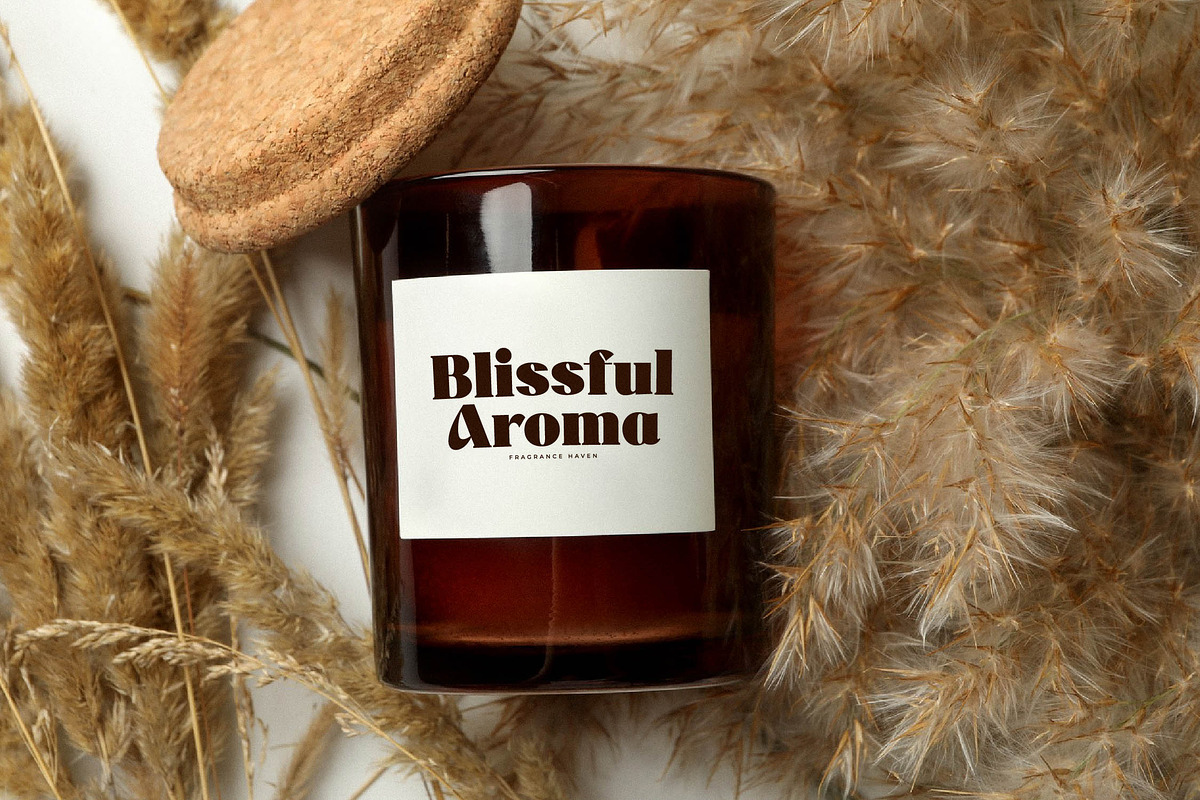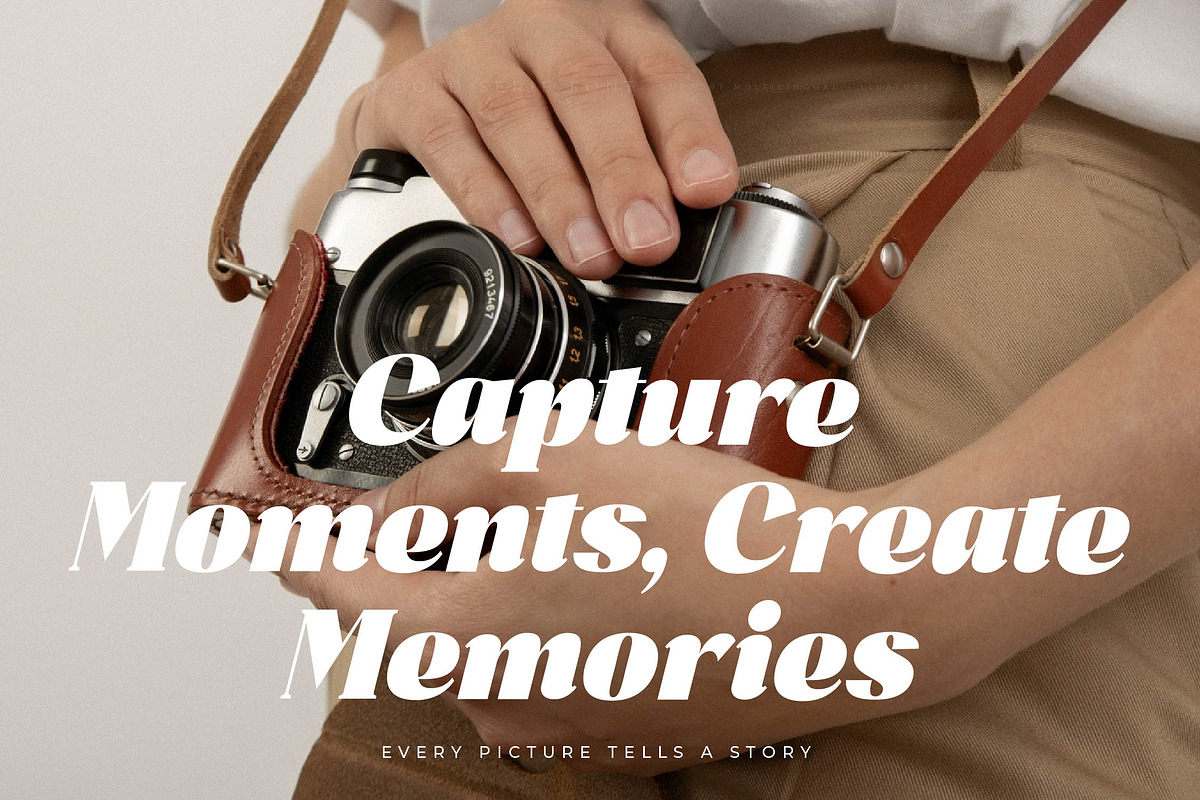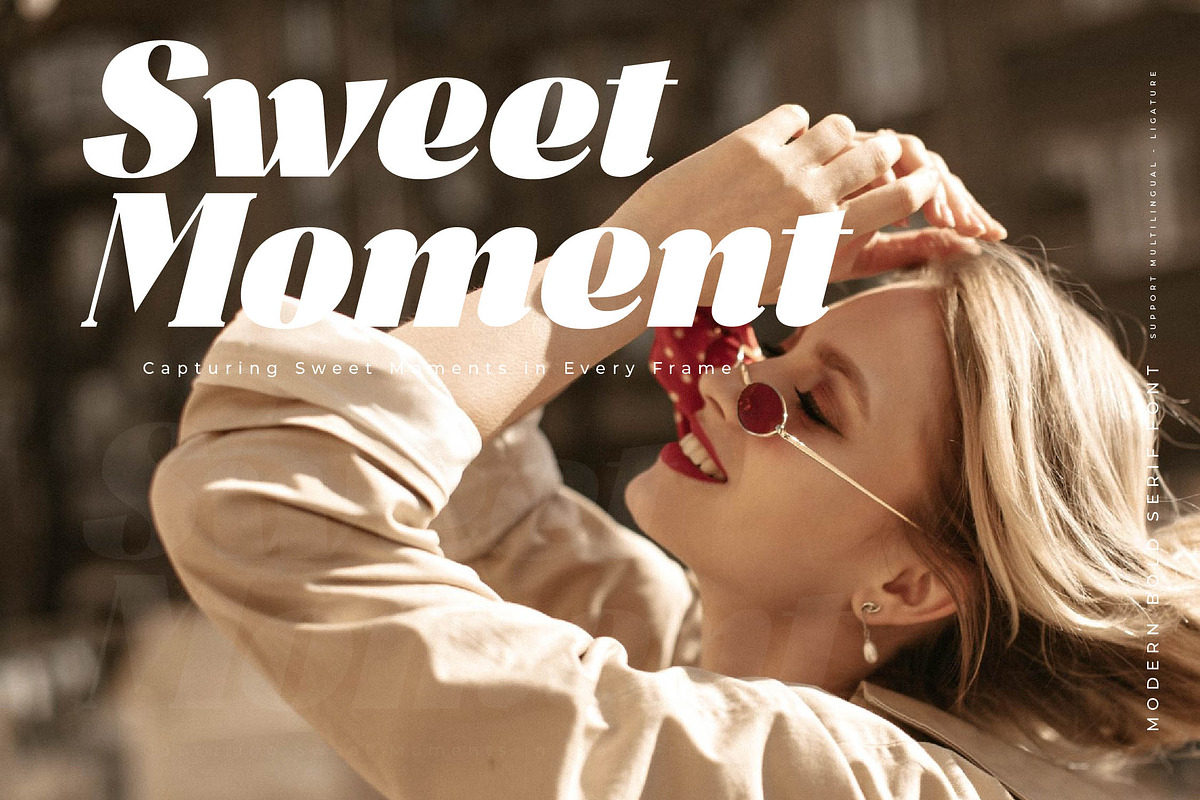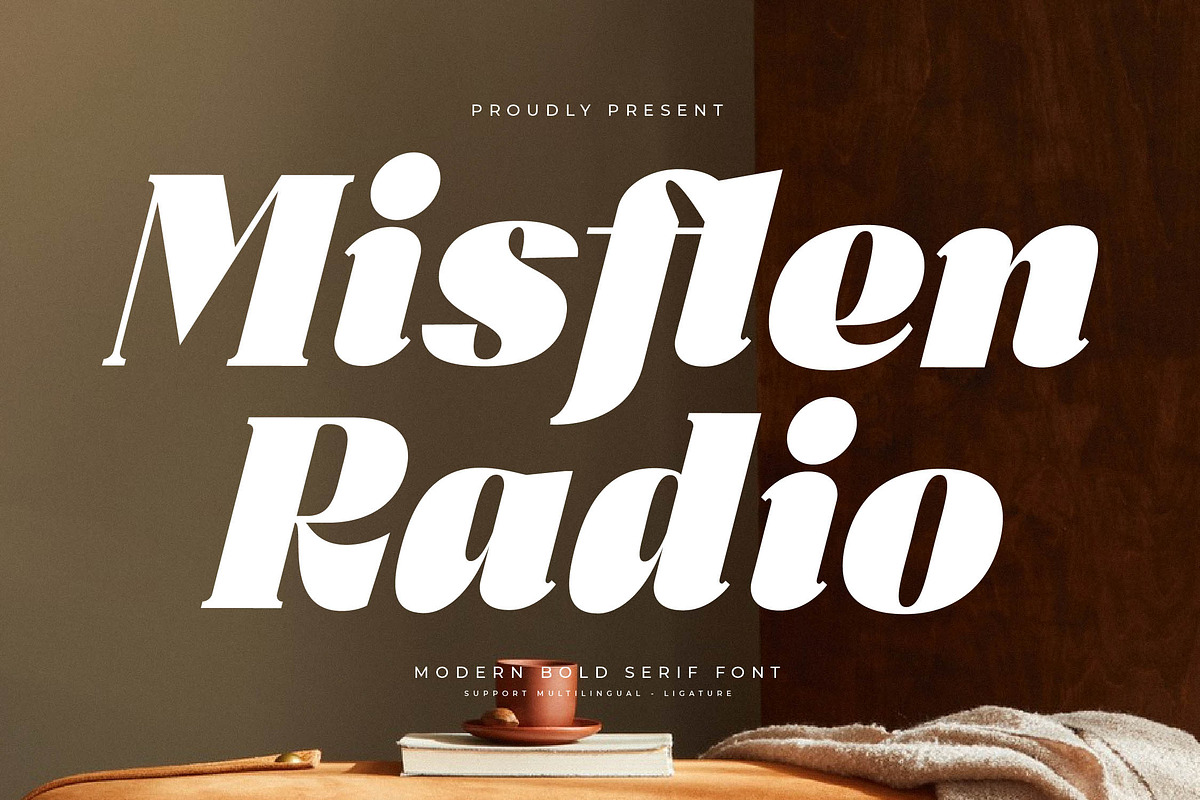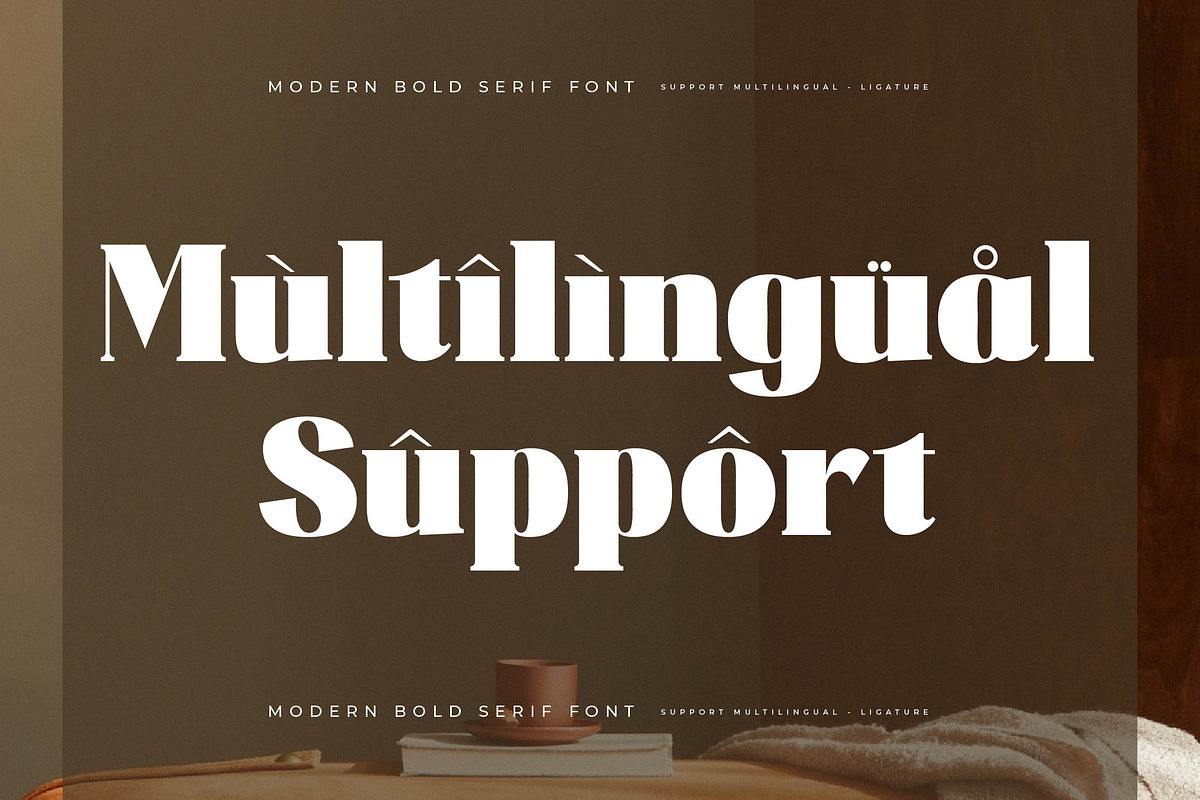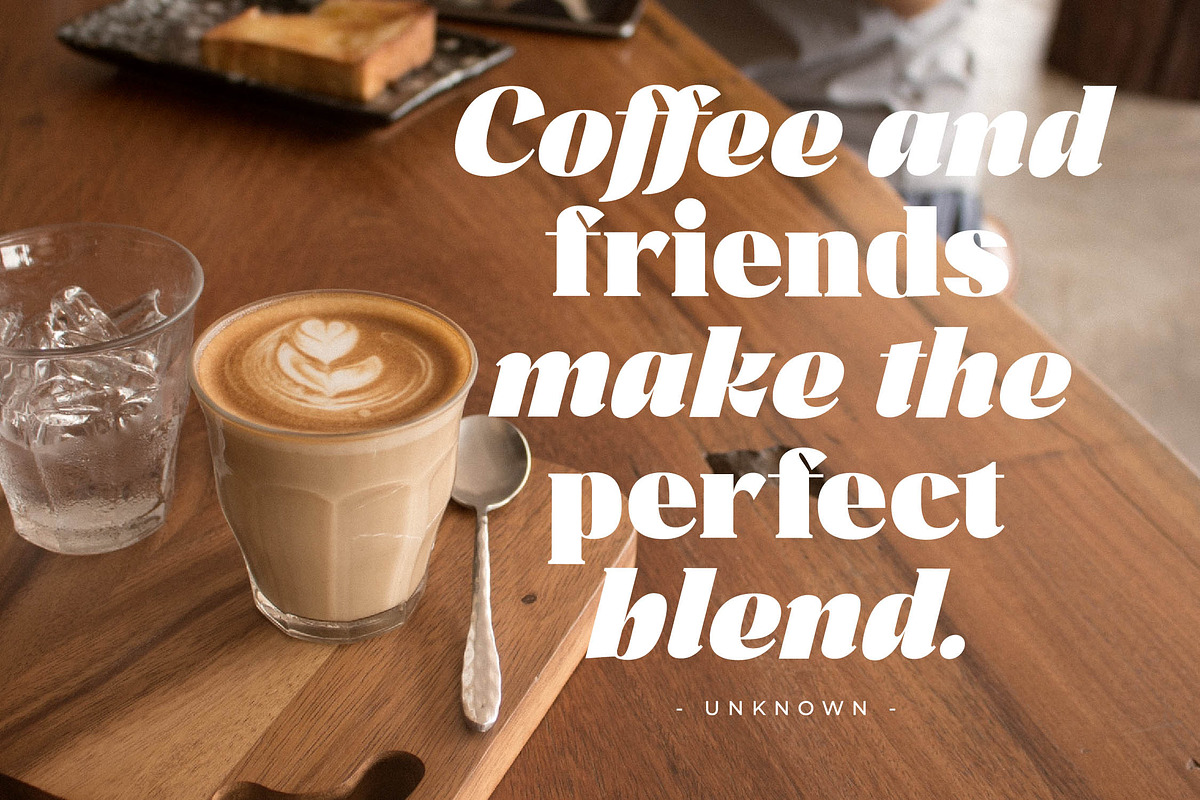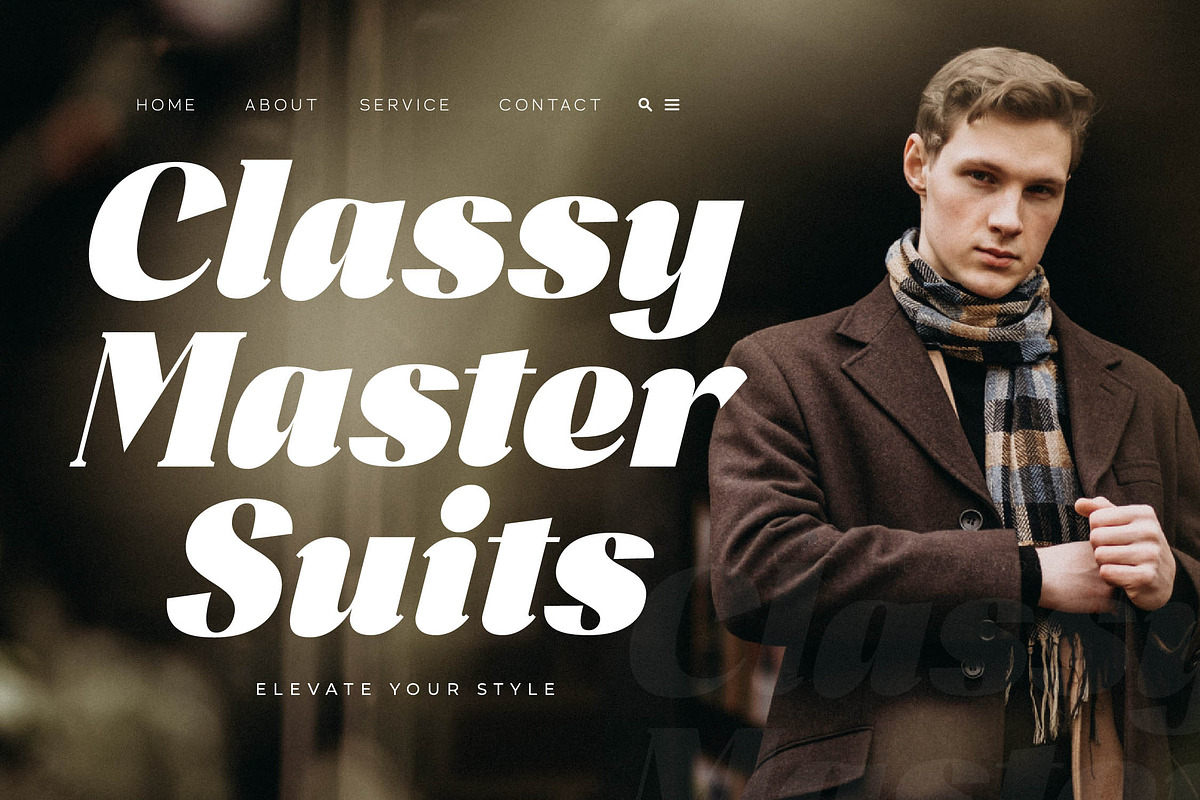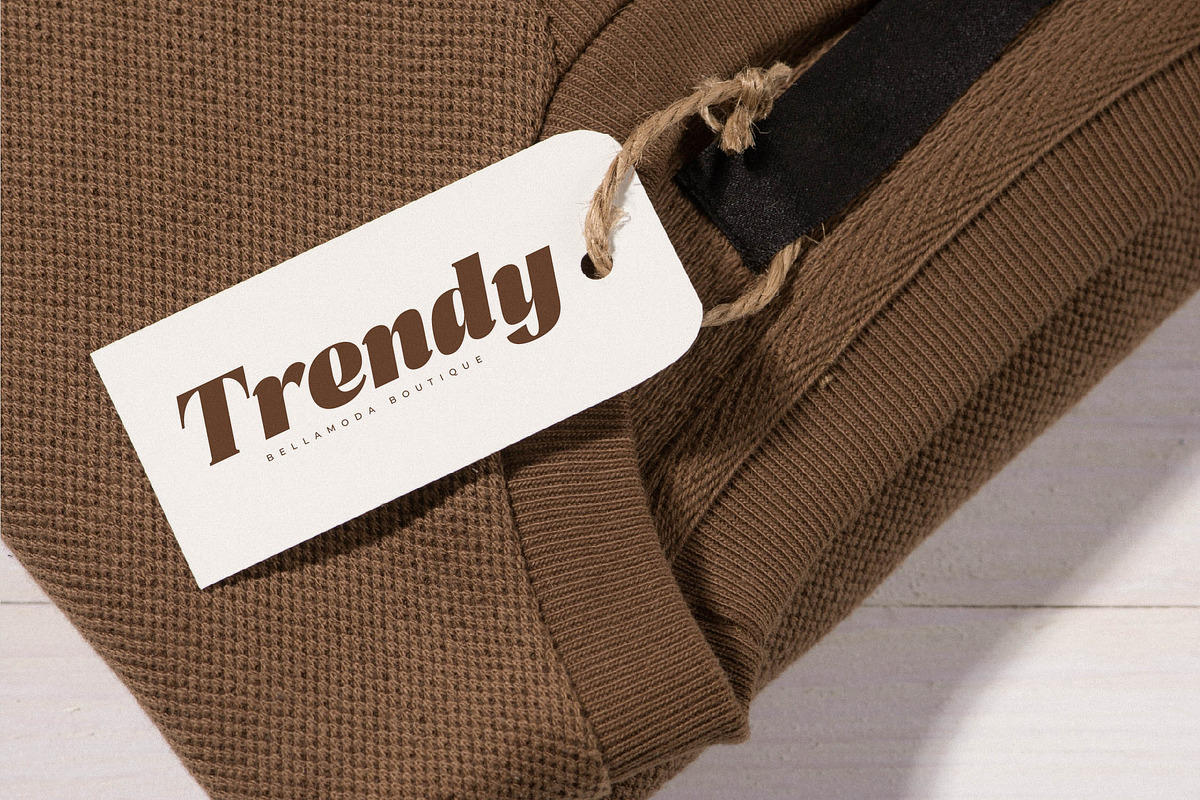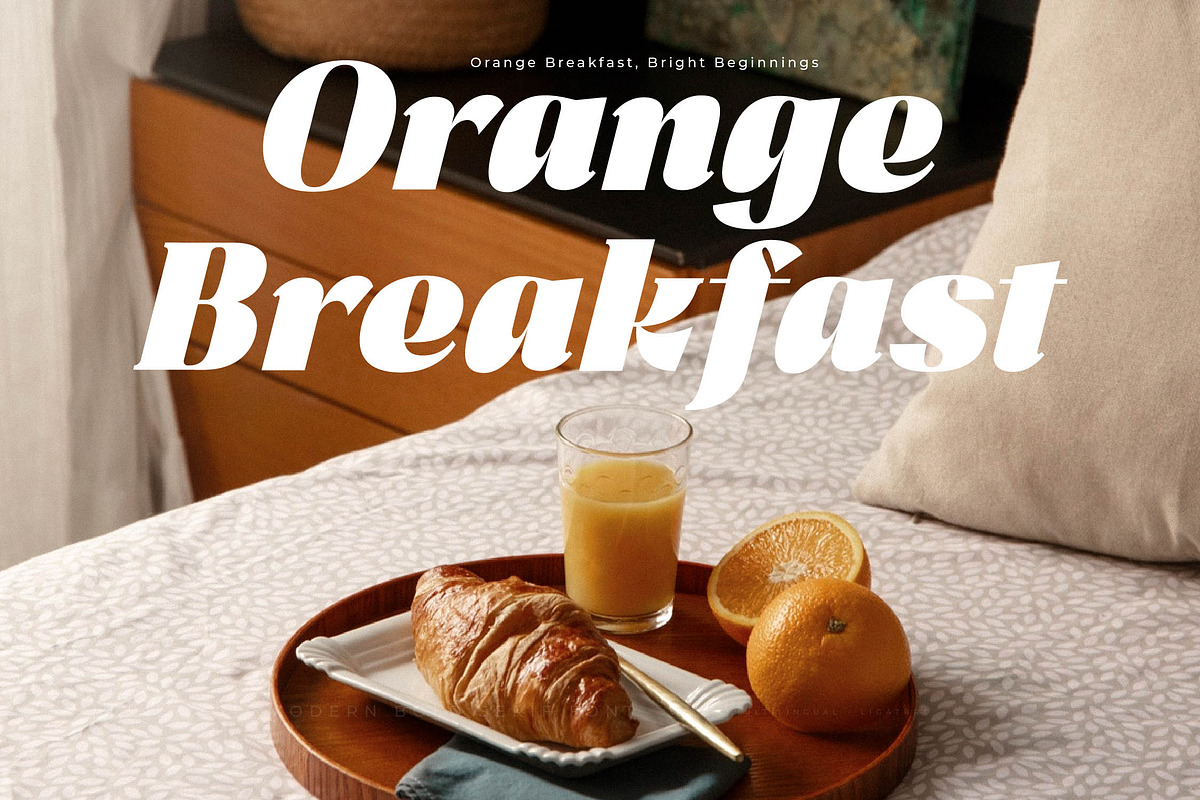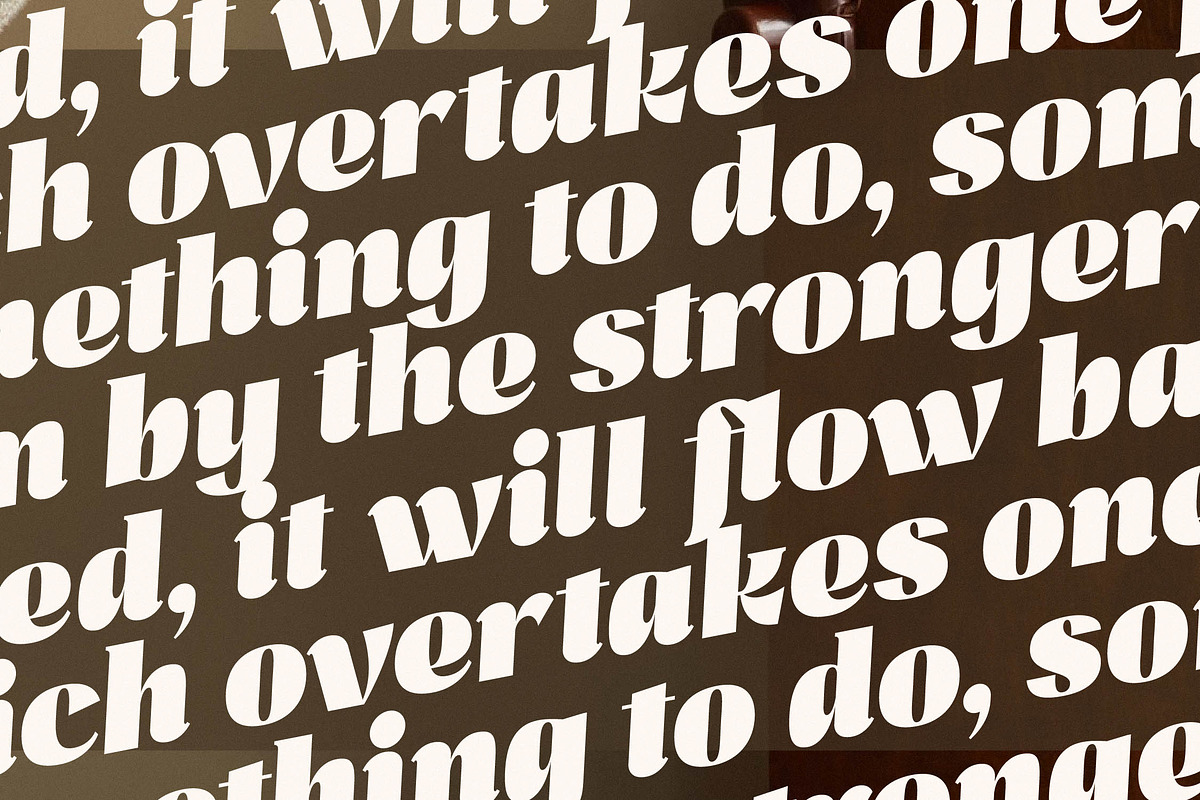
Misflen Radio Modern Bold Serif
Misflen Radio – Modern Bold Serif Font , from Letterena, is a Luxury Serif font, suitable for any projects such as: logos, branding projects, homeware designs, product packaging, mugs, quotes, posters, shopping bags, t-shirts, book covers, name card, invitation cards, greeting cards, label, photography, watermark, special events, and all your other luxury and beautiful projects that need a Luxury serif taste.